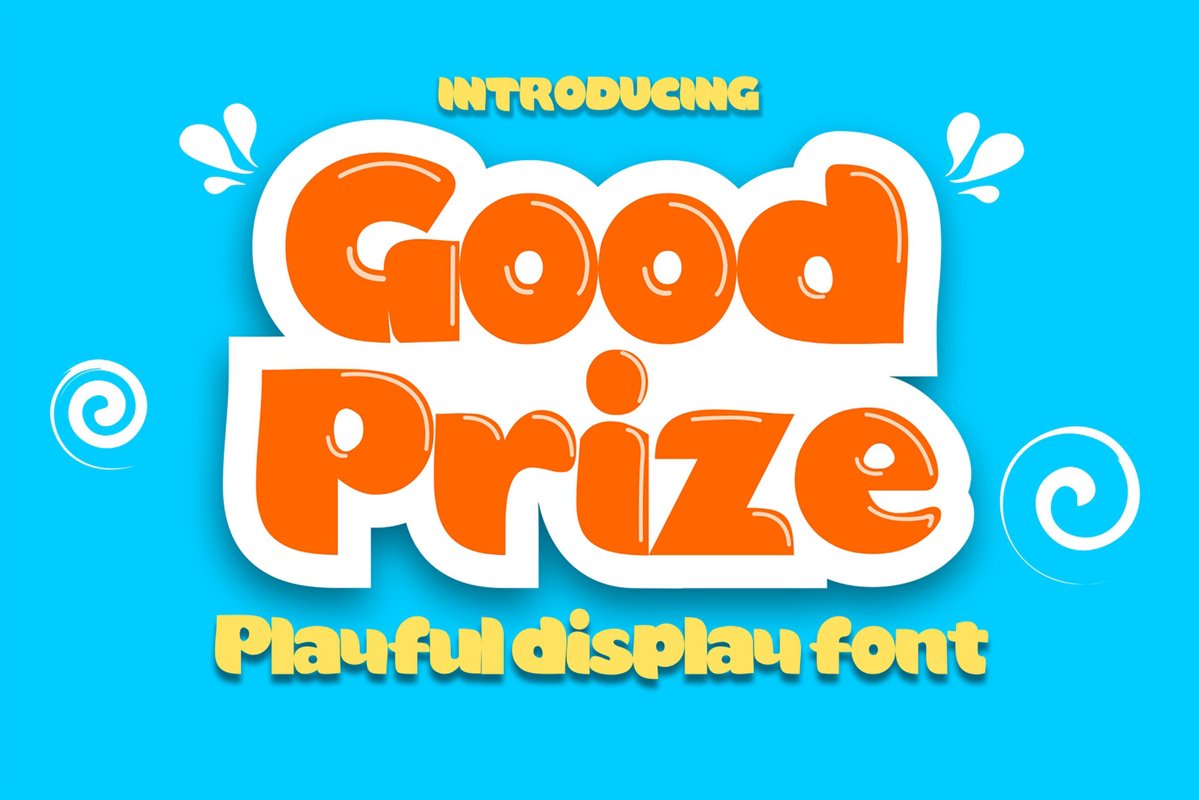
Good Prize
Good Prize is a funny, bold and cute display font with a unique twist. Get inspired by its unique feel, and turn add a lovely charm to any crafts project!